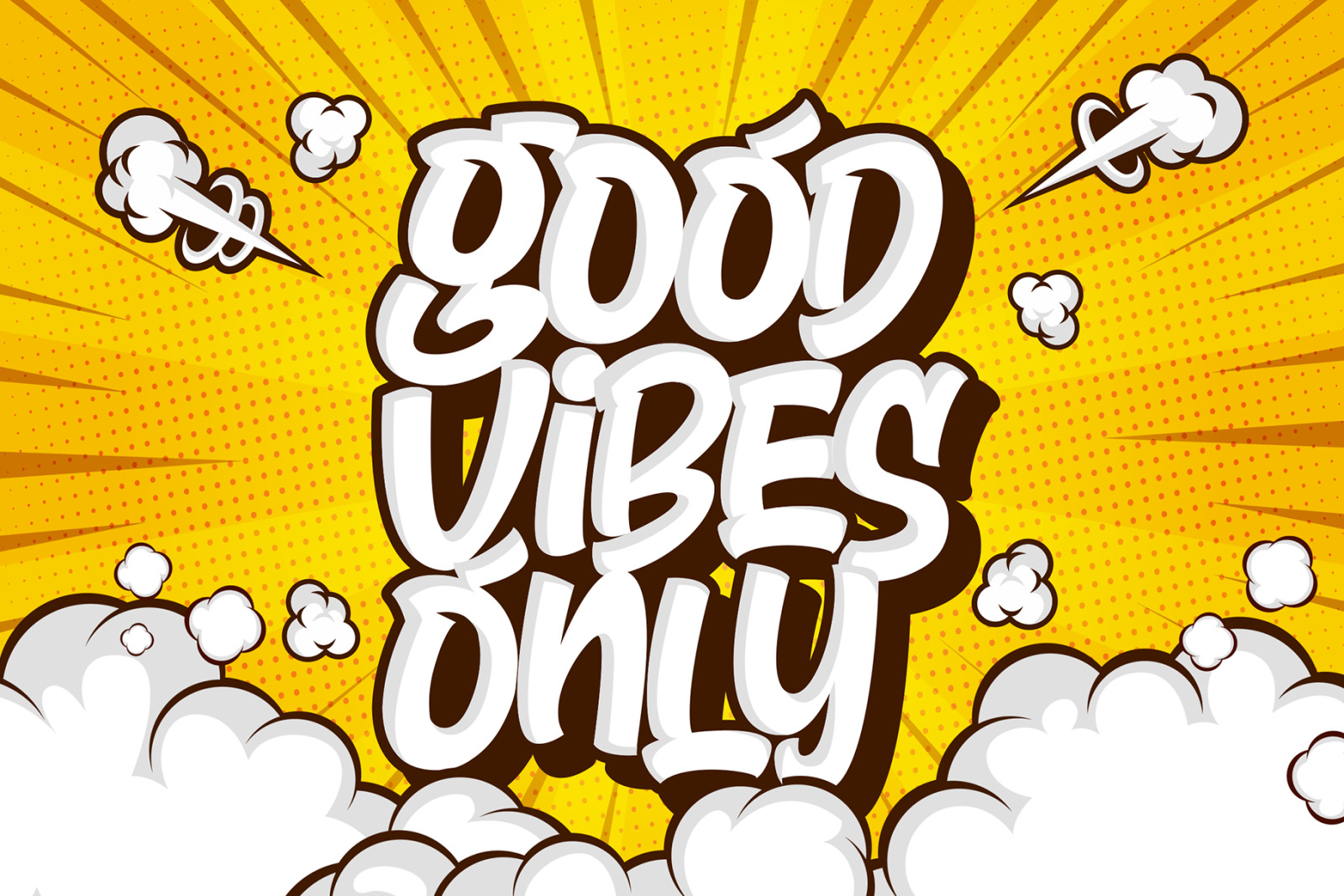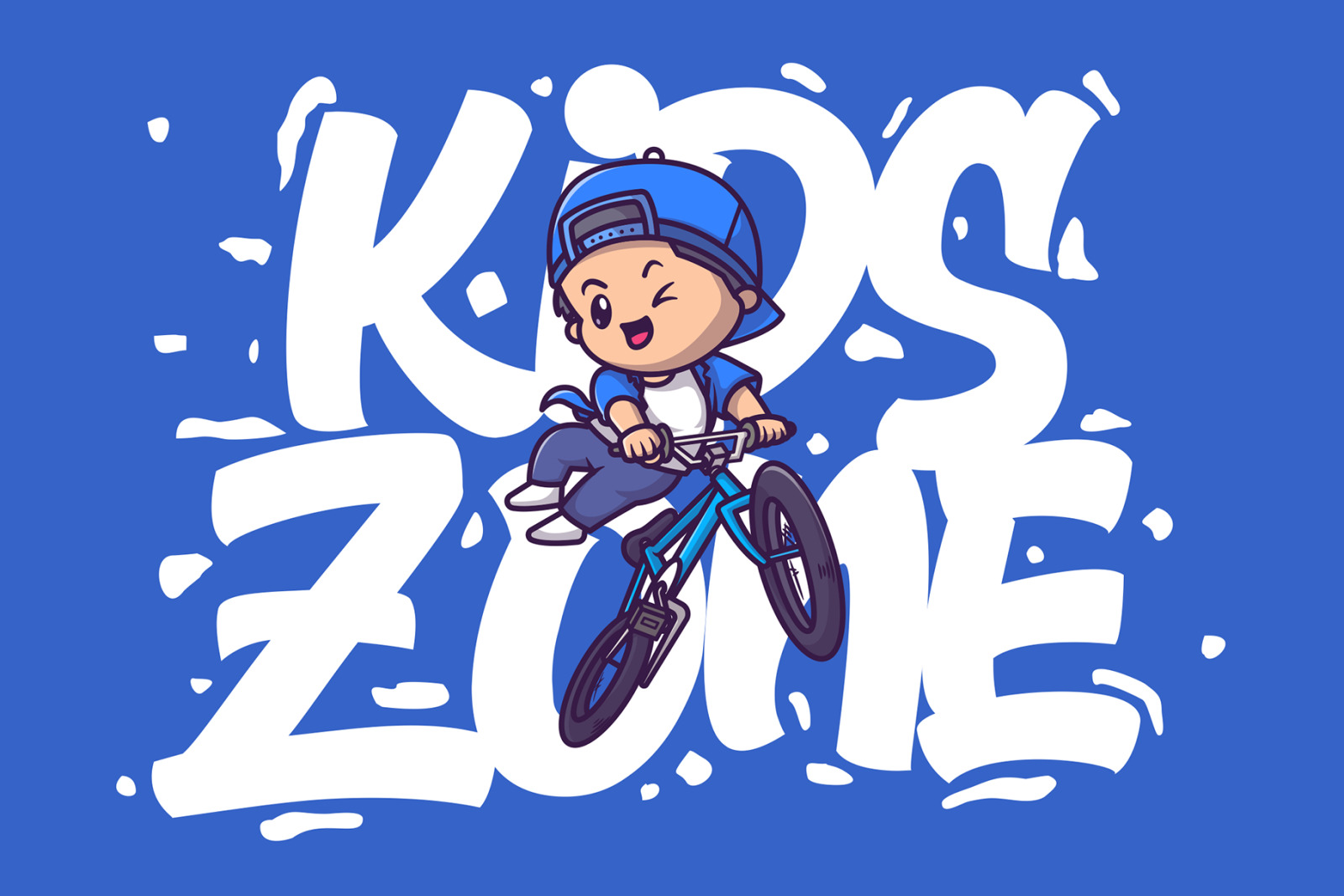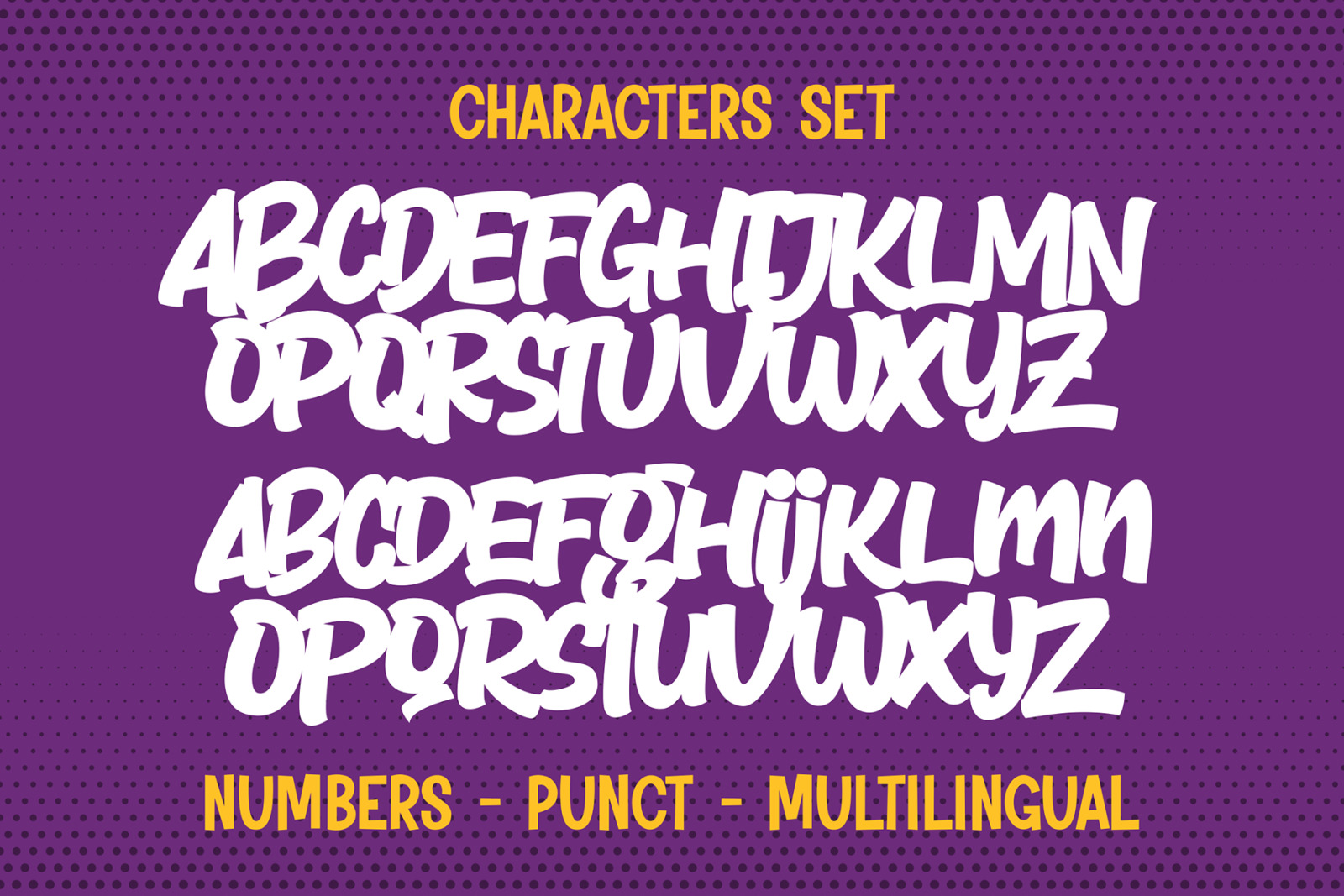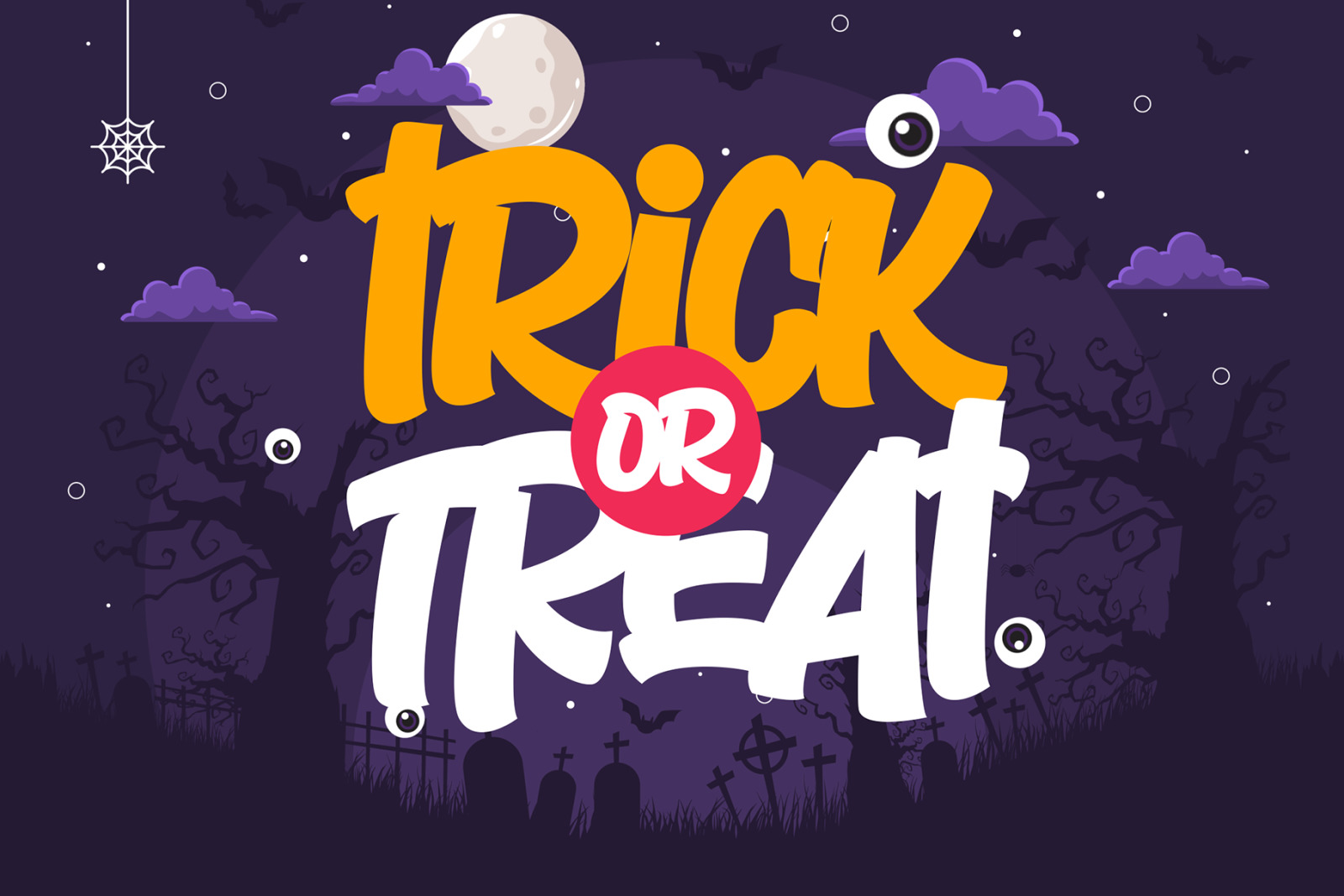
Komica Brought - Unique Display Font
Say hello to Komica Brought font. Made with love and joy. Comic look, so it will make your design more beautiful, cute, fun, and colorful.
- Uppercase and Lowercase
- Numerals and Punctuation (OpenType Standard)
- Accents (Multilingual characters)